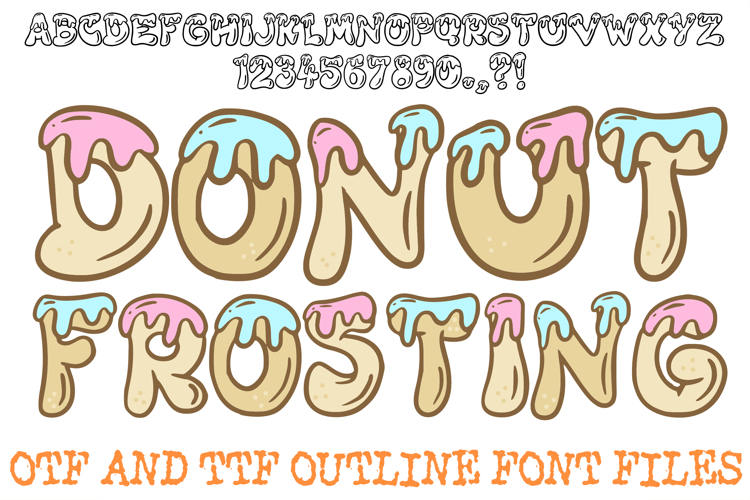
The Donut Frosting Font is a deliciously plump, playful display typeface that captures the sweet, whimsical energy of freshly baked treats covered in thick, dripping glaze. Featuring chunky, rounded bubble letterforms topped with heavy, oozing frosting caps and subtle detail marks, this font brings a joyful, mouth-watering personality to any layout. It is an exceptional choice for designers working on bakery branding, children's birthday party invitations, food truck menus, sweet shop packaging, and vibrant custom sticker sheets.
The design masterfully pairs thick, cartoonish proportions with organic fluid layers, making each character look like it was pulled straight from a colorful animation canvas. Because the letterforms feature clean, open interior paths, you have complete creative freedom to color in the base letters and the frosting caps separately to create perfect combinations like chocolate and pink strawberry glaze. Whether you are building a prominent heading for a festive dessert blog or designing eye-catching apparel prints, this font injects an undeniable fun factor into your digital toolkit.
Thick Melting Frosting Caps: Beautifully sculpted top layers mimic slow-dripping icing, adding instant tactile texture and visual flavor to every letter.
Fully Customizable Colors: The open vector outlines allow you to independently fill and change the colors of both the base font and the frosting caps to suit your exact palette.
Massive Bubble Display Weight: Ultra-bold, plump silhouettes ensure your headers, titles, and logos stand out prominently on packaging and digital screens.
Whimsical Cartoon Architecture: Hand-drawn curves and cheerful proportions completely reject rigid geometry for a friendly, approachable aesthetic.